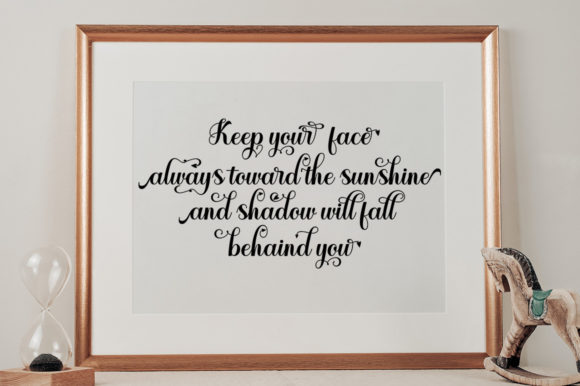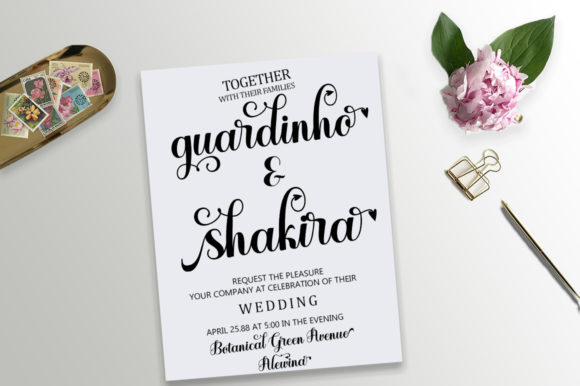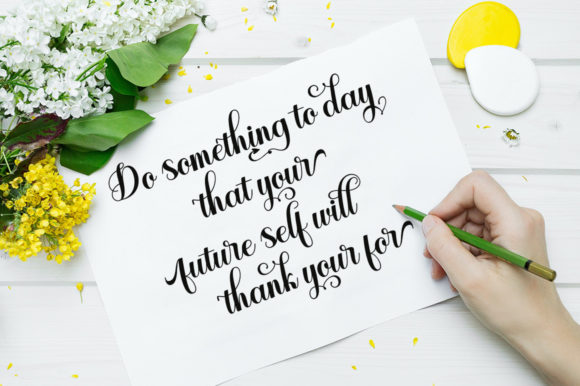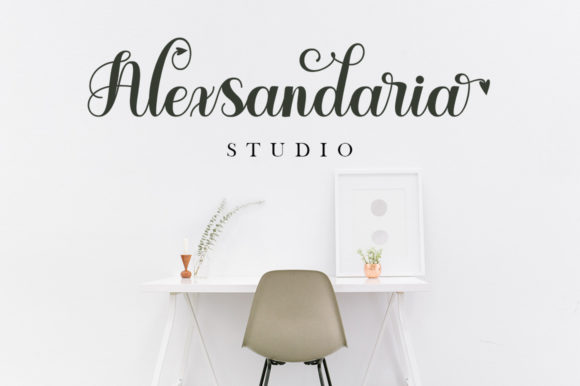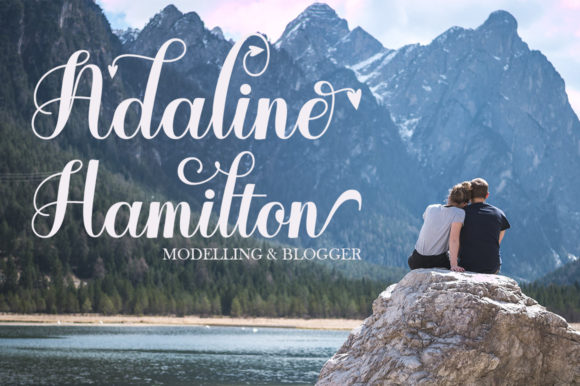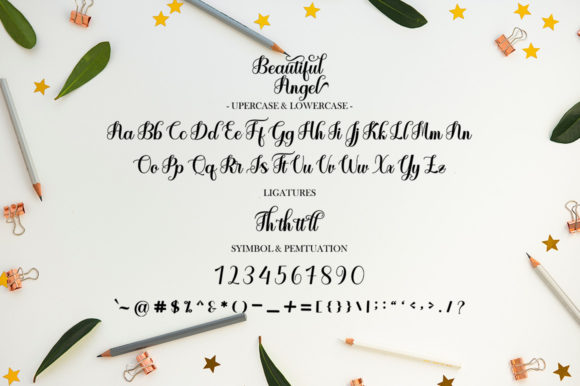
Introducing Beautiful Angel Font: Elevate Your Designs with Elegance
Are you a designer, crafter, or DIY enthusiast looking for a font that can add a touch of elegance and sophistication to your creative projects? Look no further than the Beautiful Angel Font, a delicate, distinct, and flowing handwritten font that is sure to bring your ideas to life.
The Beauty of Beautiful Angel Font
Beautiful Angel Font is a stunning example of a handwritten font that exudes elegance and refinement. Its delicate and flowing lines make it perfect for a variety of creative projects, from crafting and scrapbooking to graphic design and digital art. The font’s unique and distinct style sets it apart from other fonts, making it an excellent choice for those looking to add a personal touch to their work.
One of the standout features of Beautiful Angel Font is its PUA (Private Use Area) encoding. This means that you can access all of the font’s glyphs and swashes with ease, giving you greater flexibility and creative control over your designs. With PUA encoding, you can easily insert special characters, ligatures, and other decorative elements into your text, taking your designs to the next level.
Beautiful Angel Font is ideal for a wide range of creative projects, including:
- Scrapbooking and paper crafting: Add a touch of elegance to your scrapbook pages, cards, and other paper crafts with this beautiful font.
- Graphic design: Use Beautiful Angel Font to create stunning graphics, logos, and branding materials that are sure to impress.
- Digital art: Add a personal touch to your digital art, illustrations, and paintings with this beautiful font.
- DIY projects: Use Beautiful Angel Font to create signs, banners, and other decorative items for your home or office.
Why Choose Beautiful Angel Font?
So why choose Beautiful Angel Font over other fonts? Here are just a few reasons:
- Unique and distinctive style: Beautiful Angel Font has a one-of-a-kind style that sets it apart from other fonts.
- Elegant and sophisticated: This font exudes elegance and sophistication, making it perfect for projects that require a high level of refinement.
- Easy to use: With PUA encoding, you can easily access all of the font’s glyphs and swashes, making it easy to use and incorporate into your designs.
- Versatile: Beautiful Angel Font can be used for a wide range of creative projects, from crafting and scrapbooking to graphic design and digital art.
Tips for Using Beautiful Angel Font
Here are a few tips for using Beautiful Angel Font in your creative projects:
- Experiment with different sizes and colors: Beautiful Angel Font looks great in a variety of sizes and colors, so don’t be afraid to experiment and find the perfect combination for your project.
- Pair it with other fonts: Beautiful Angel Font pairs well with other fonts, so try combining it with a bold font for a striking contrast.
- Use it for headings and titles: This font is perfect for headings and titles, where its elegance and sophistication can really shine.
- Don’t be afraid to get creative: With PUA encoding, you can easily access all of the font’s glyphs and swashes, so don’t be afraid to get creative and try new things.
Beautiful Angel Font is a stunning handwritten font that is sure to elevate your creative projects to the next level. With its delicate and flowing lines, PUA encoding, and elegant style, it’s the perfect choice for designers, crafters, and DIY enthusiasts looking for a font that can add a touch of sophistication and refinement to their work. So why wait? Download Beautiful Angel Font today and start creating beautiful, one-of-a-kind designs that are sure to impress.